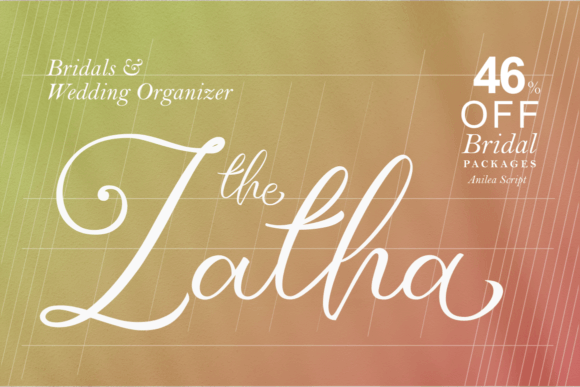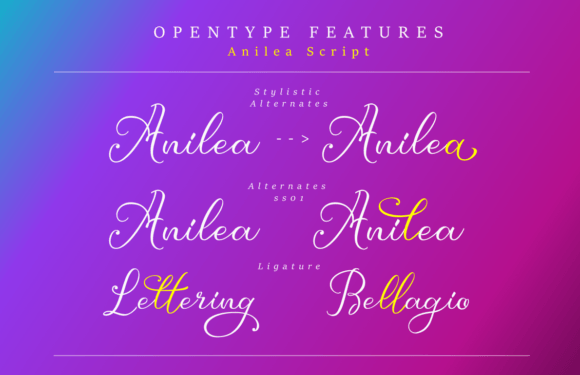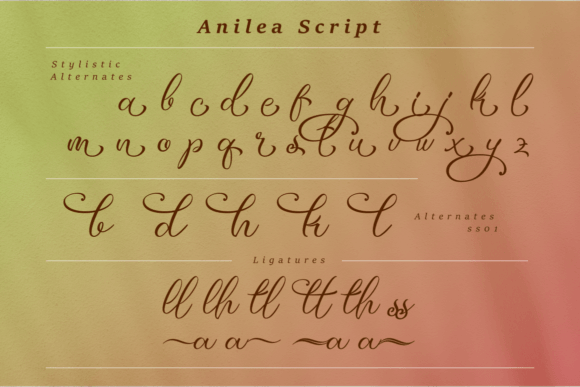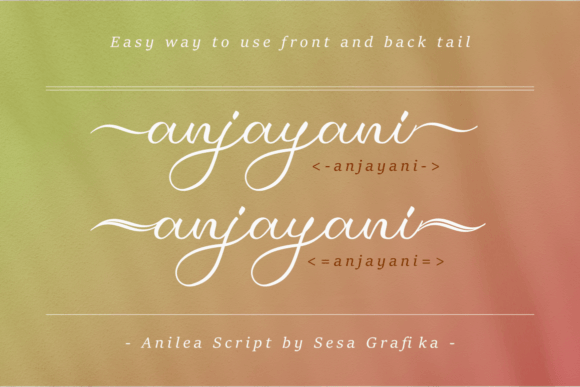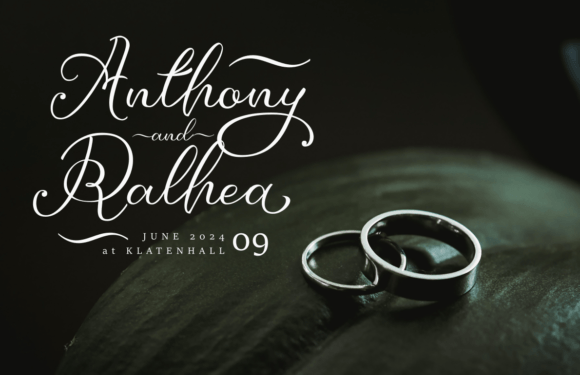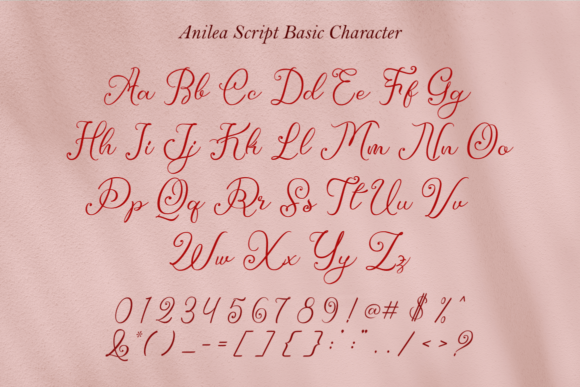
Discover the Elegance of Anilea Font: Elevate Your Designs with a Timeless Script
Are you searching for a font that embodies elegance, romance, and sophistication? Look no further than the Anilea Font, a delicate and flowing handwritten script that is perfect for a variety of projects. In this article, we’ll dive into the world of Anilea Script, exploring its unique features, uses, and benefits for designers and crafters.
The Charm of Anilea Script Font
Anilea Script is a beautiful, elegant, and flowing handwritten font that is sure to capture your heart. Its incredibly distinct and timeless style makes it the perfect choice for a range of applications, from wedding invitations and branding projects to heartfelt messages and distinctive logo designs. With Anilea Script, you can add a touch of romance and refinement to your projects, elevating them to new heights.
Perfect for Wedding and Branding Projects
Anilea Script Font is particularly well-suited for wedding and branding projects. Its elegant and romantic style makes it ideal for:
- Wedding invitations: Create beautiful and memorable wedding invitations that set the tone for your special day.
- Branding: Use Anilea Script to create distinctive logos, business cards, and marketing materials that reflect your brand’s personality and values.
- Signage: Add a touch of elegance to your signage, whether it’s for a wedding, event, or business.
Key Features of Anilea Script Font
So, what makes Anilea Script Font so special? Here are just a few of its key features:
- Delicate and flowing lines: Anilea Script features beautiful, flowing lines that give it a sense of movement and elegance.
- Timeless style: This font’s classic style ensures that it will never go out of fashion, making it a great investment for designers and crafters.
- Elegant and romantic: Anilea Script is the perfect choice for projects that require a touch of romance and sophistication.
- Versatile: This font can be used for a wide range of projects, from wedding invitations to branding materials.
Anilea Script Font offers a range of benefits for designers and crafters, including:
- Ease of use: This font is easy to use and can be incorporated into a variety of design projects.
- Customization: Anilea Script Font can be customized to suit your project’s specific needs, ensuring a unique and personalized look.
- Time-saving: With Anilea Script, you can create beautiful designs quickly and efficiently, saving you time and effort.
How to Use Anilea Script Font
Using Anilea Script Font is easy. Here are a few tips to get you started:
- Pair it with other fonts: Anilea Script looks great when paired with other fonts, such as sans-serif fonts for a modern look or serif fonts for a more traditional feel.
- Experiment with colors: Try out different colors and color combinations to find the perfect look for your project.
- Play with layout: Don’t be afraid to experiment with different layouts and arrangements to create a unique and eye-catching design.
In conclusion, Anilea Script Font is a beautiful and elegant handwritten font that is perfect for a variety of projects. Its timeless style, delicate lines, and romantic feel make it the perfect choice for wedding invitations, branding projects, and more. With its ease of use, customization options, and time-saving benefits, Anilea Script Font is a must-have for designers and crafters. So why wait? Fall in love with Anilea Script Font and elevate your designs to new heights!
Whether you’re a designer, crafter, or simply someone who appreciates beautiful typography, Anilea Script Font is sure to captivate and inspire. So go ahead, give it a try, and experience the magic of Anilea Script for yourself!